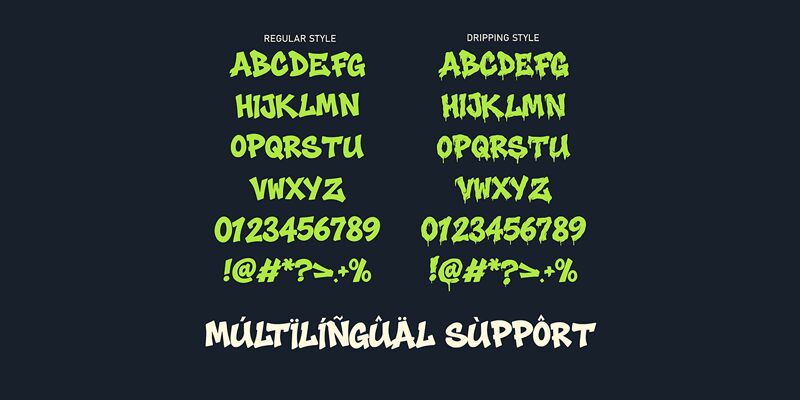
Grime Slime font family from Cikareotype Studio captures the essence of grassroots visual art. These 2 font styles combine beauty and simplicity within the provided alphabet. A free graffiti font, it is characterized by a strong visual presence and elaborate curves. Although the main focus is not placed on a stylish identity, the font allows unique designs. It will look especially harmonic with grounded visuals that appeal more to the creative side of a person.
The typeface is perfectly suitable for use in street art, art, apparel designs, brandings, packaging, headlines, flyers, posters, social media posts, or wayfinding. A mix between modern and classic styles makes it attractive for completely opposite use cases such as a minimalistic book cover.